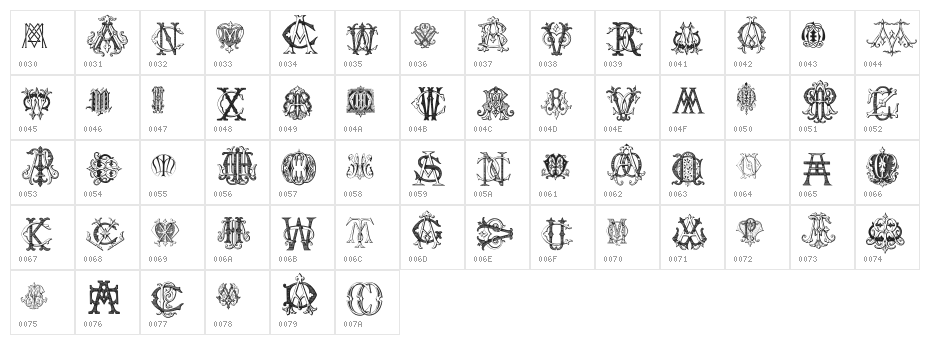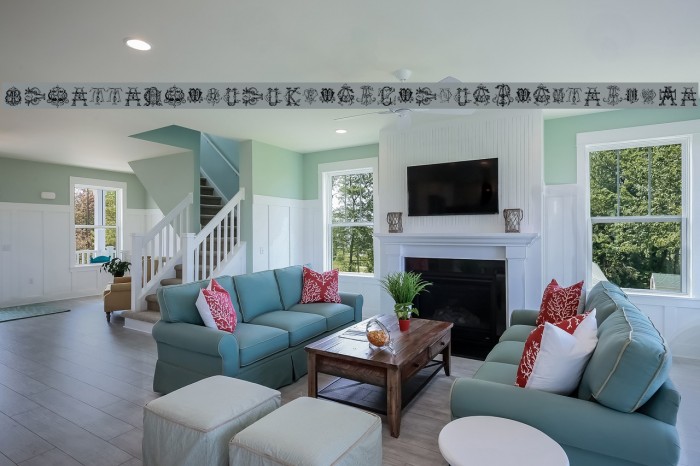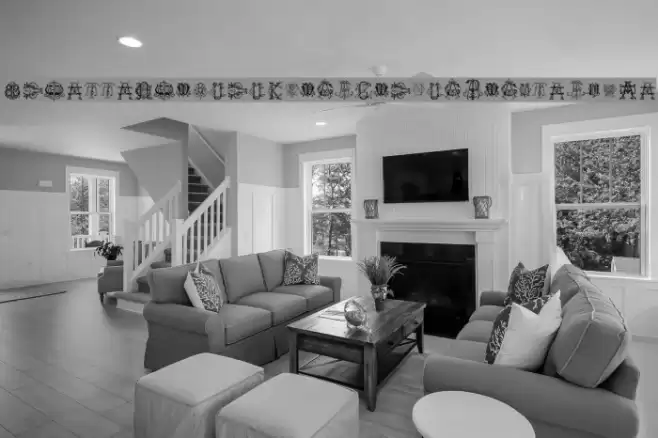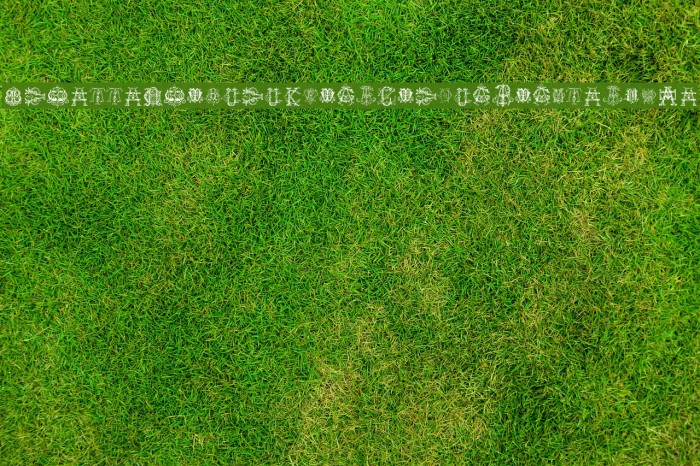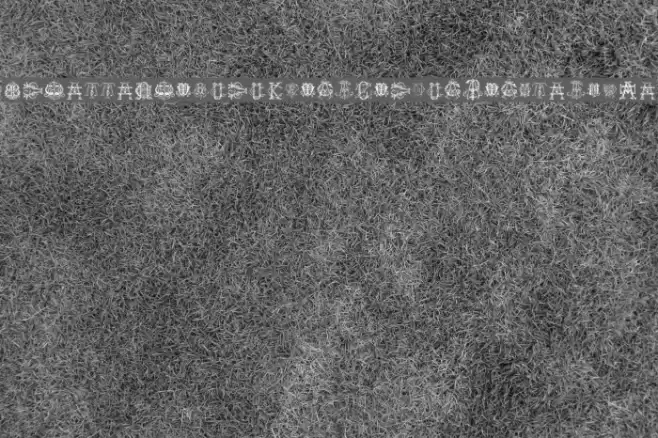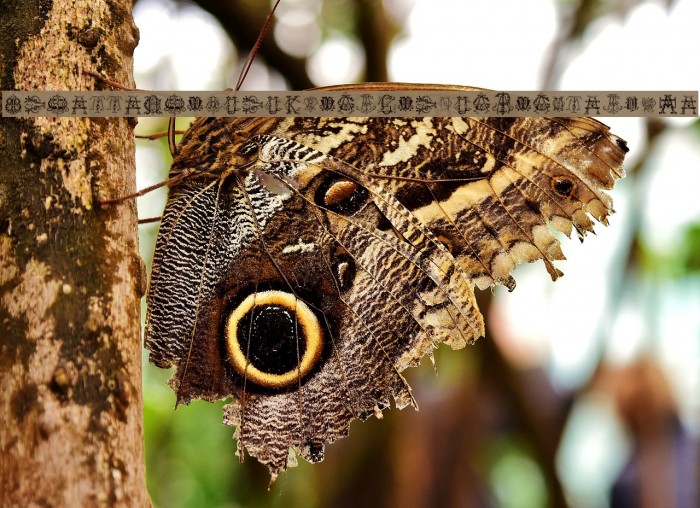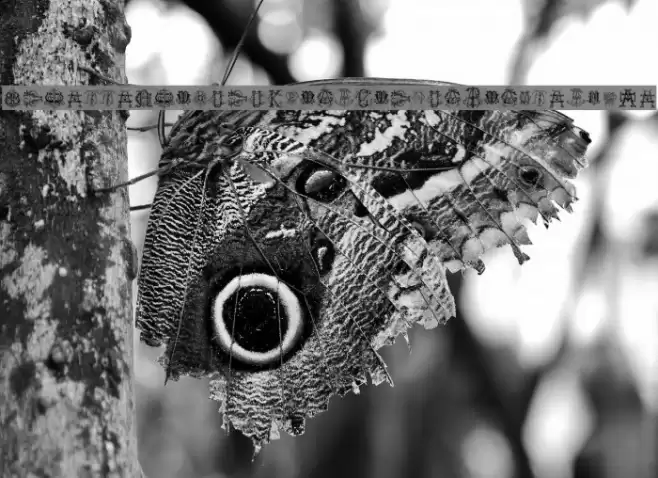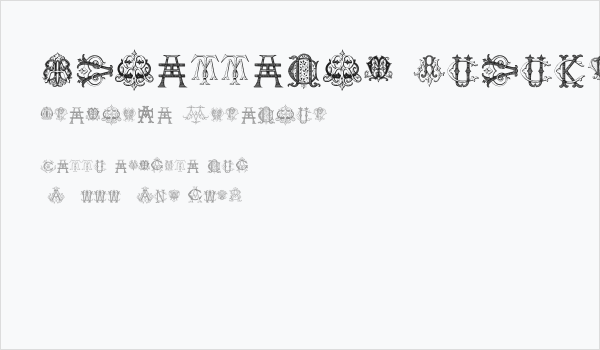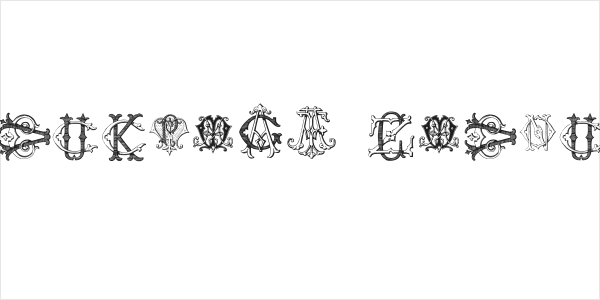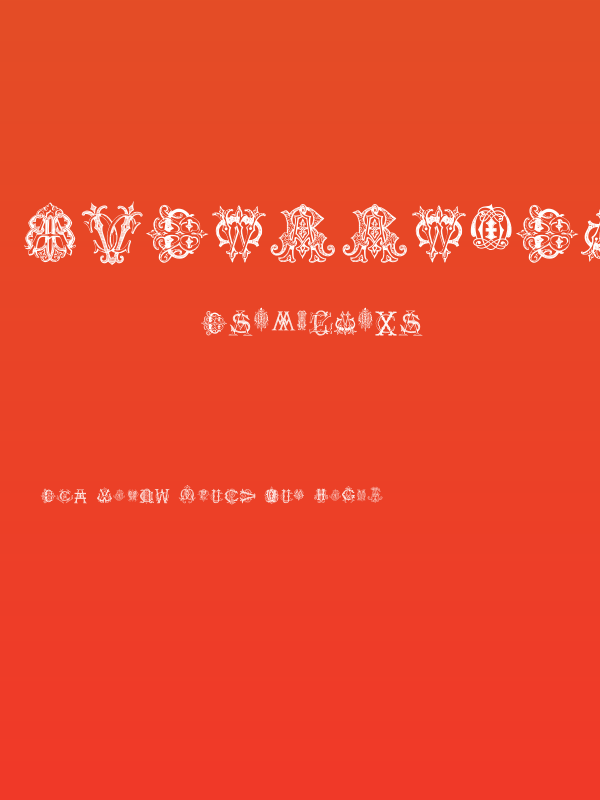
This font is a highly decorative and intricate collection of monograms, each letter crafted with elaborate flourishes and ornamental details. The characters are designed to intertwine and overlap, creating a sense of elegance and complexity. The style is reminiscent of vintage or classical monogram designs, often used in formal settings. Each letter is unique, with varying levels of embellishment, making it suitable for projects that require a touch of sophistication and artistry. The font is not intended for body text due to its ornate nature but excels in decorative applications.
Overall StyleVintage
Use CaseLogos, Invitations, Decorative Art
Proposed ProjectsIdeal for wedding invitations, luxury branding, personalized stationery, and decorative art pieces.